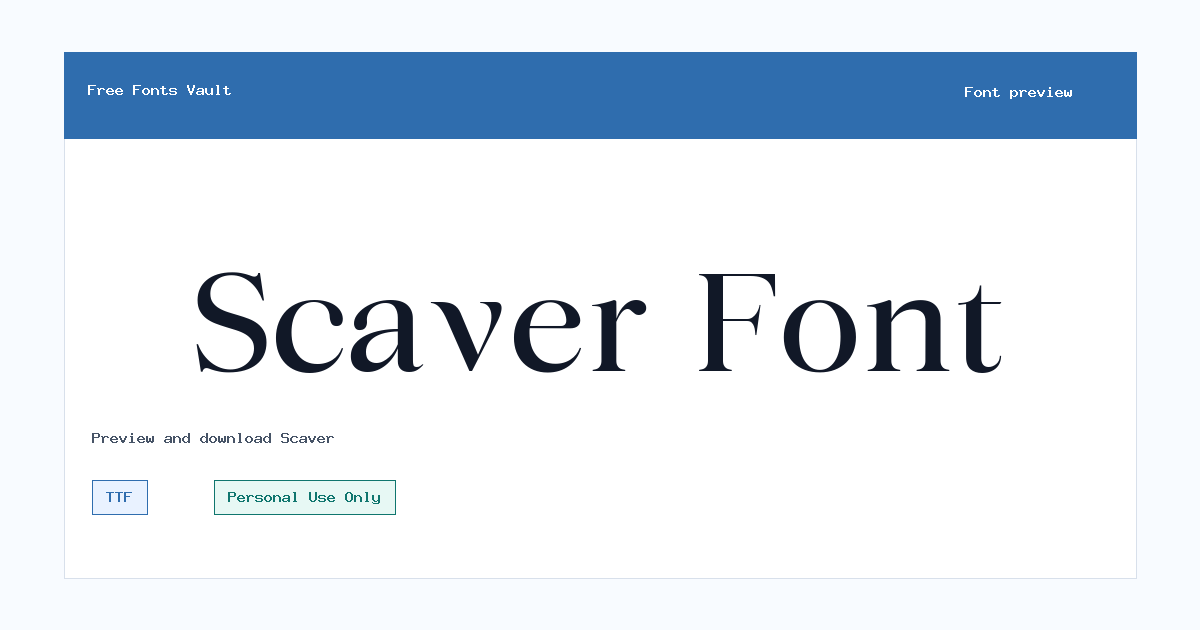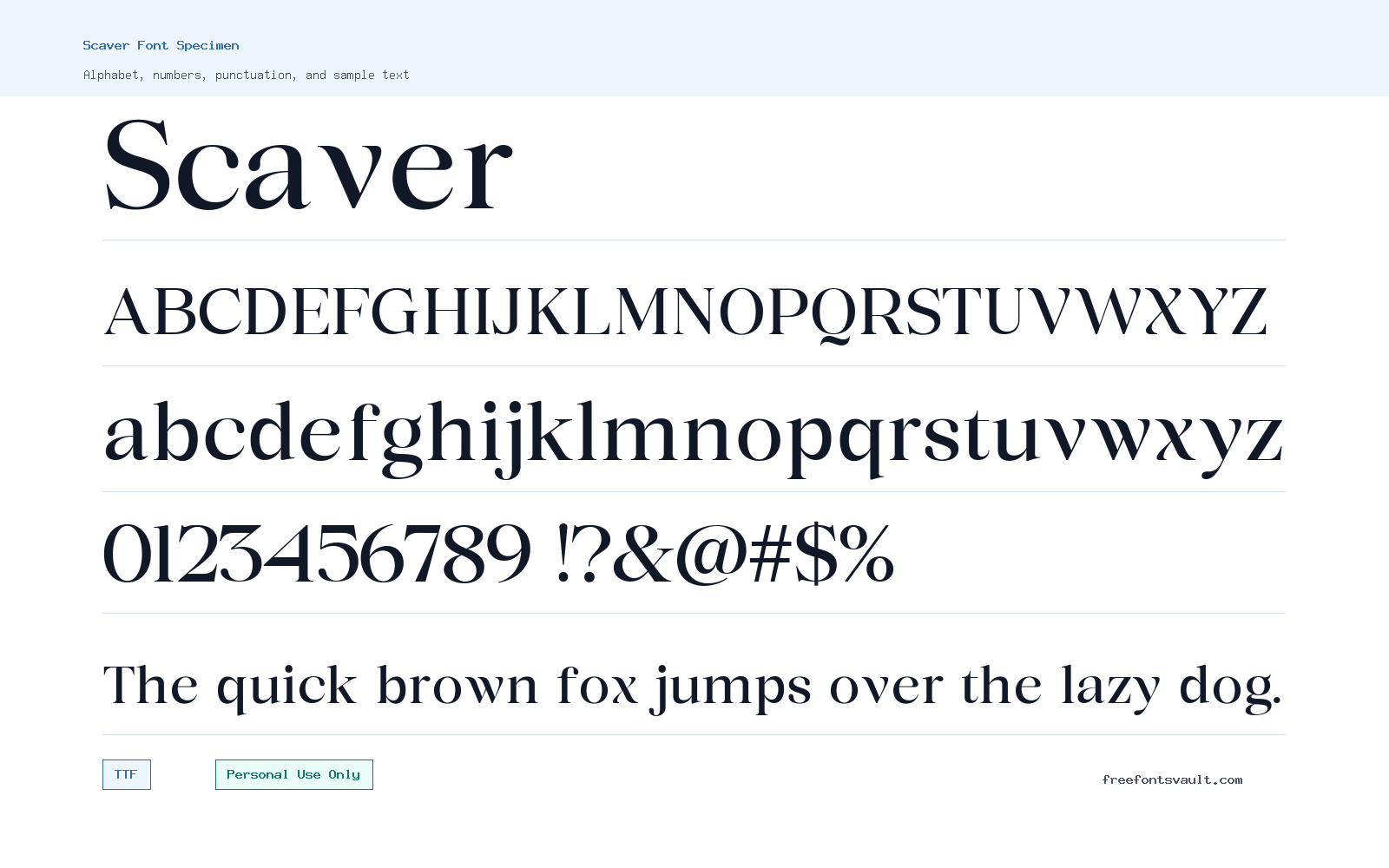
Scaver
- Designer Glyphminds Studio (Graphicted.Co)
Scaver is a modern serif font family with a polished display look, suitable for visitors who want a refined type style for personal design projects.
About Scaver Font
Scaver uses a serif structure with an elegant, high-impact feel. The available files on Free Fonts Vault include Regular, Italic, Bold, and Bold Italic in TTF format, giving you enough range to test headlines, short brand-style text, invitations, posters, and editorial-style layouts. A source page describes Scaver as a serif family intended for creators looking for a modern and sophisticated appearance, with use cases such as logos, branding, fashion campaigns, editorial design, beauty-related visuals, wedding invitations, and packaging.
Use the preview tool before downloading to check how Scaver handles your own words. Serif display fonts can look strong in large sizes but may lose comfort in long paragraphs, so try it first in titles, names, short quotes, menu headings, labels, or hero text. The italic styles can add emphasis or a more expressive tone, while the bold weights work better when you need stronger contrast. If you plan to use Scaver beside another typeface, pair it with a clean sans serif for body text so the serif details stay clear and the layout does not feel too busy.
- Modern serif styling suited to short display text, headings, and personal creative layouts.
- Personal-use logos, invitations, posters, fashion-style graphics, and editorial headings.
- Short preview text where the serif details can be seen clearly at medium to large sizes.
The designer information lists Glyphminds Studio, with Graphicted.Co as the related site.
For the best result, start with Scaver Regular for clean titles, use Bold when the text needs more weight, and reserve the italic styles for emphasis, names, pull quotes, or decorative subheadings. Avoid setting long articles or small mobile text in this font until you have checked spacing and readability in the preview.
What kind of projects is Scaver good for?
Scaver is best tested in short, visible text such as headings, invitations, posters, personal logo concepts, editorial-style titles, and fashion or beauty-inspired personal graphics.
Who designed Scaver?
The available designer metadata names Glyphminds Studio, with Graphicted.Co listed as the related designer site.
Should I use Scaver for body text?
Use caution with long body copy. Scaver is better suited to display use, so test it in the preview and consider pairing it with a simpler text font for paragraphs.